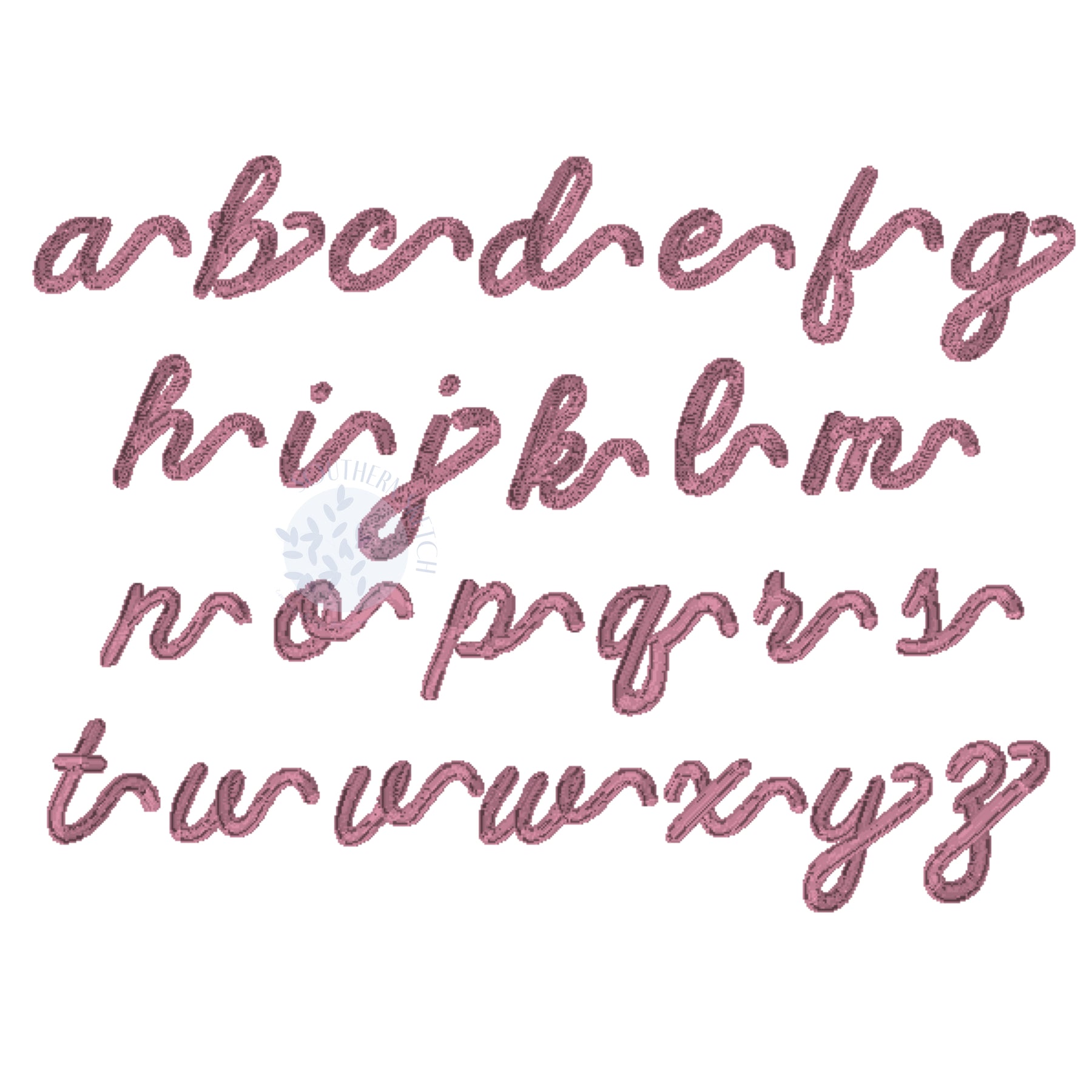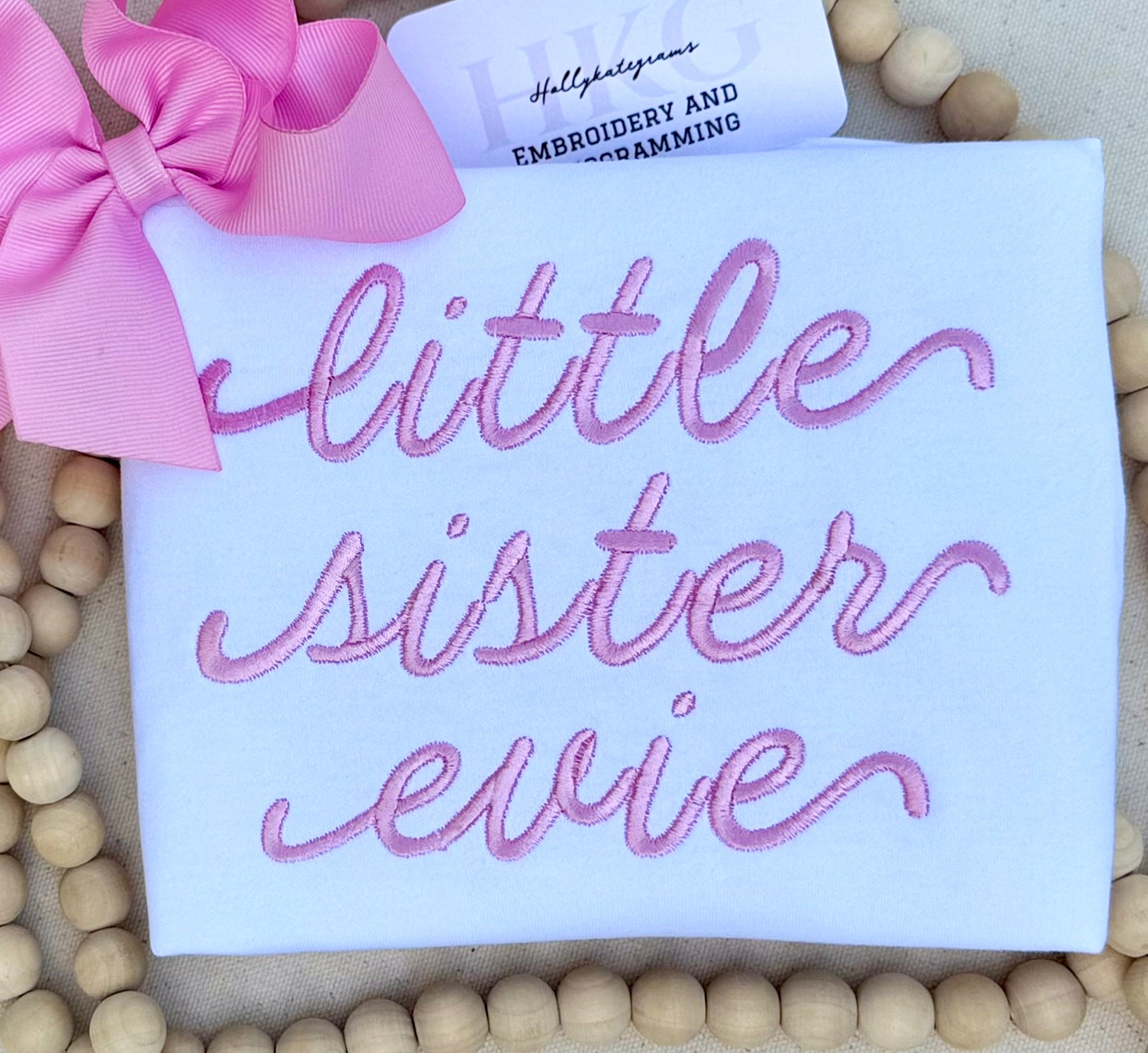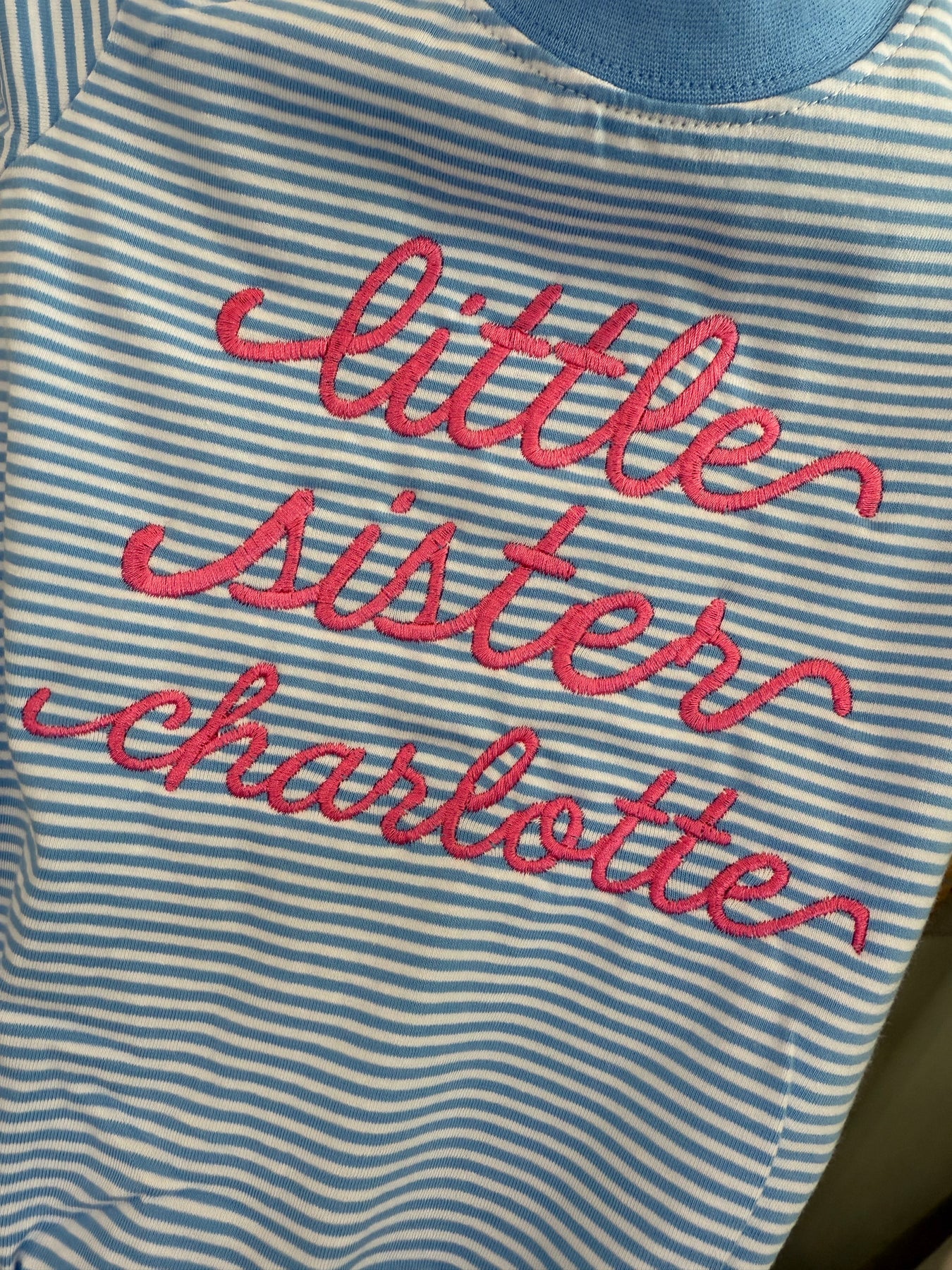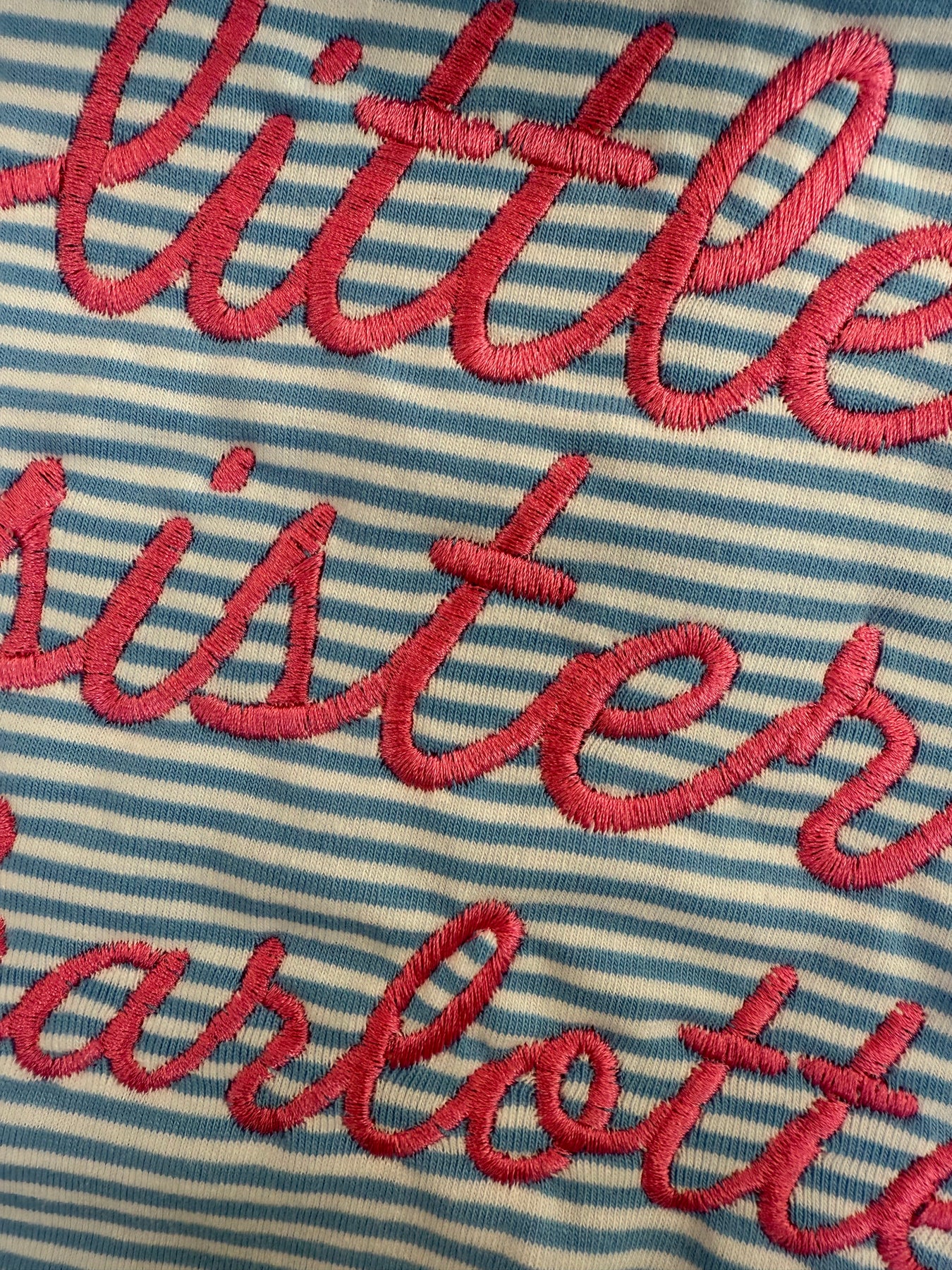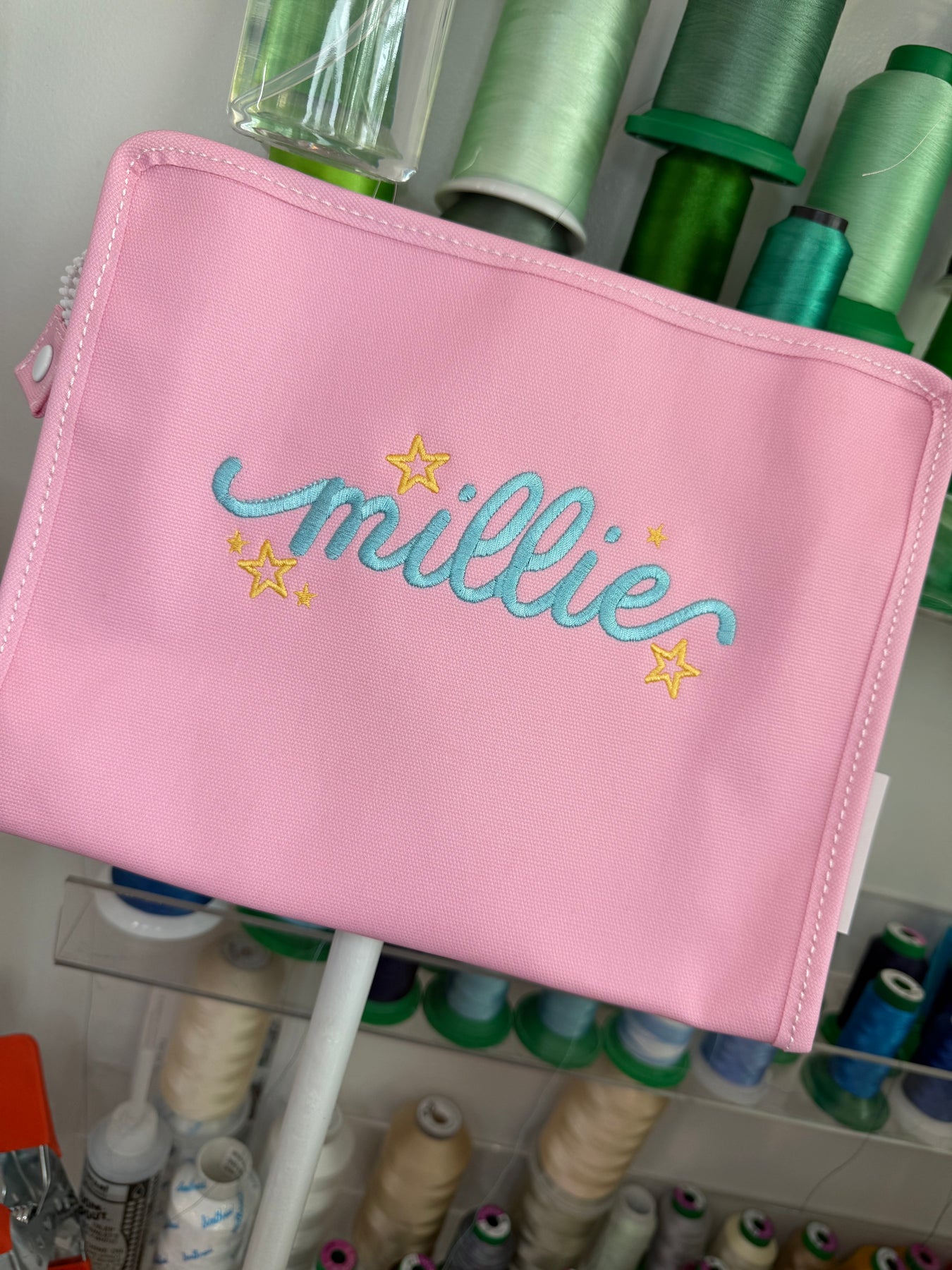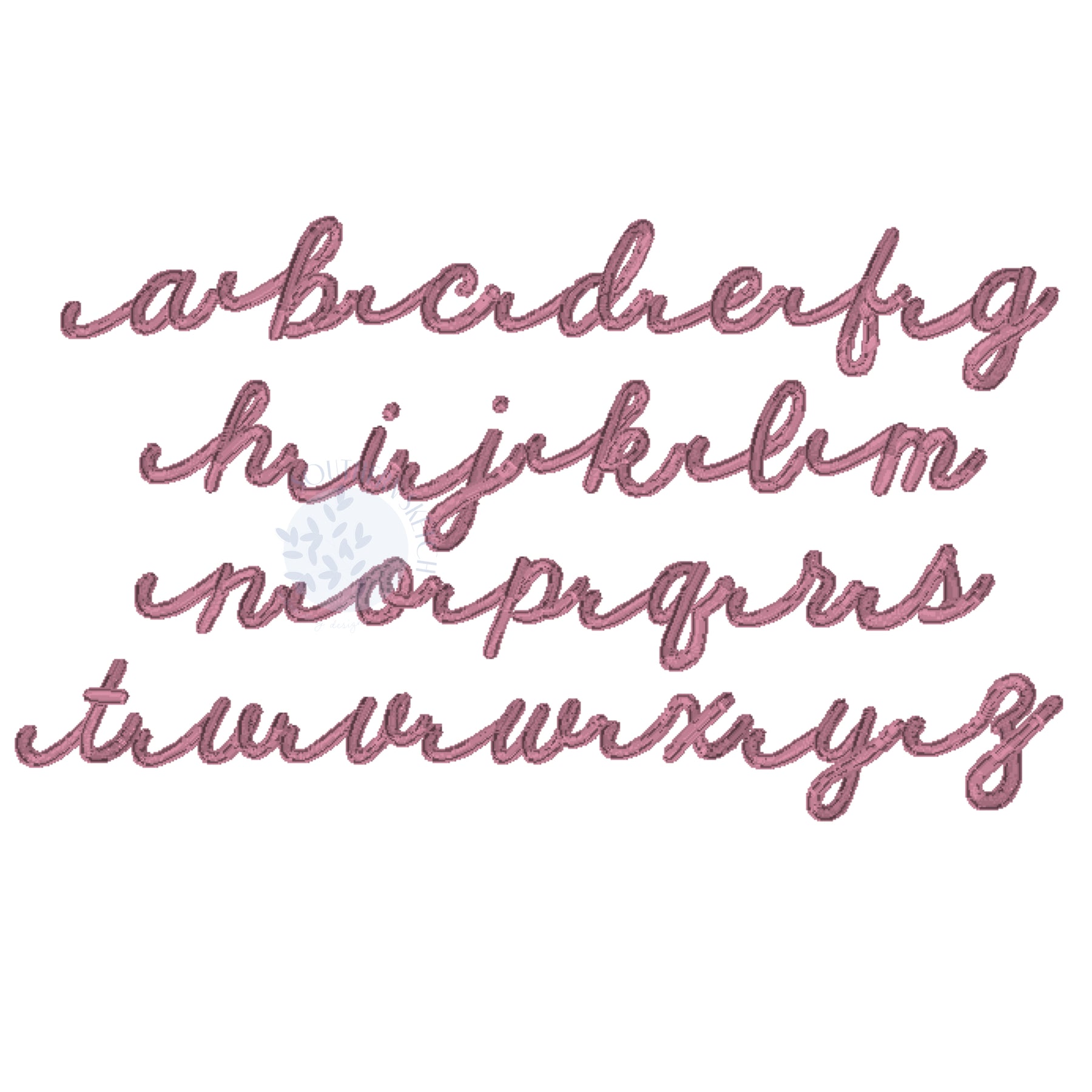
Frannie Satin Stitch Handwritten Script Font is the answer to the question we've gotton for 4 years, do you have a font to go with your best selling Big Sister, Little Brother, Big Brother, Little Sister lettering design? Well now we do! This will look so cute to add a name at the bottom of that design!
This font includes lower case letters only and a pack of freebie star add ons. This design is a little unique because for each side you'll find left, center, and right side designs. This is so you can add the decorative beginning and ending letters to bookend the monogram you are using. It is so beautiful and fun and we hope you'll love it!